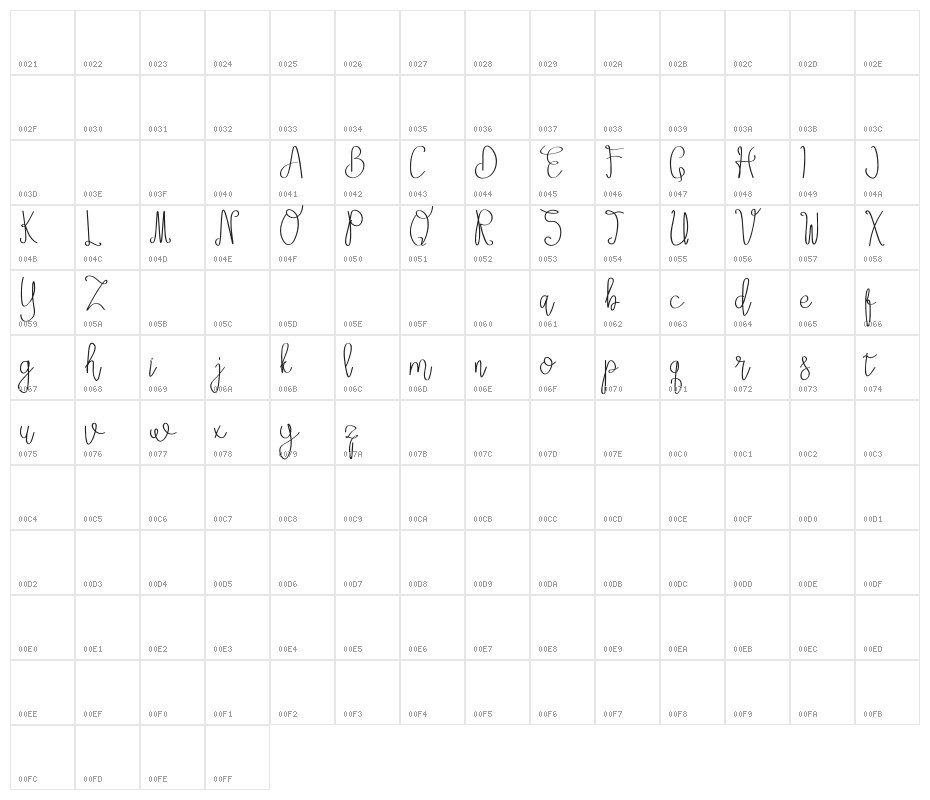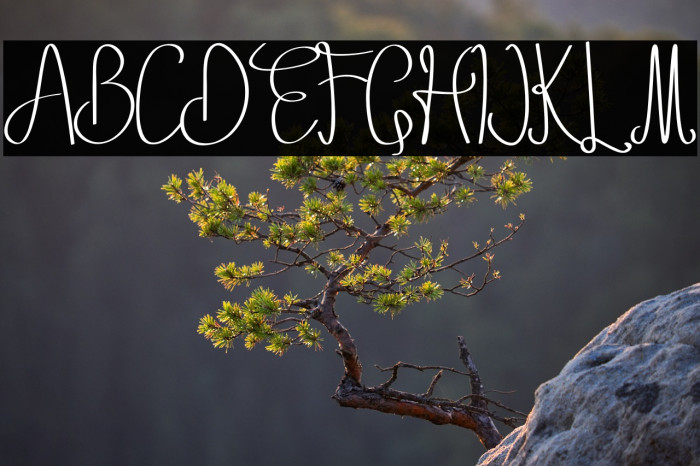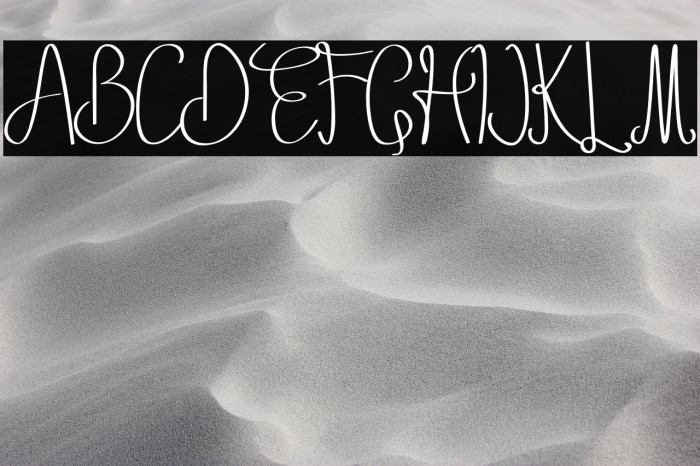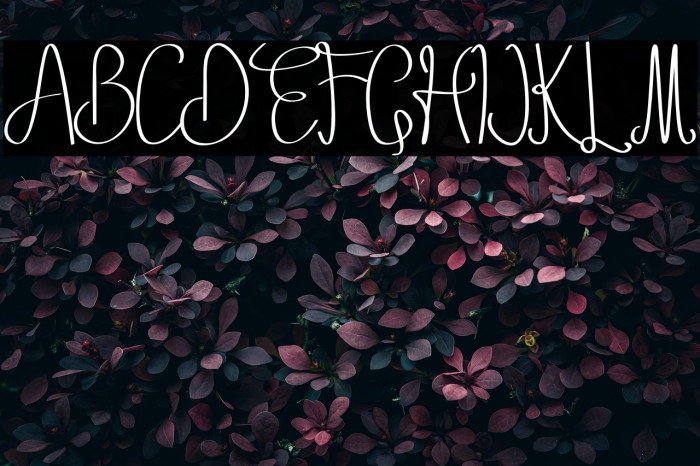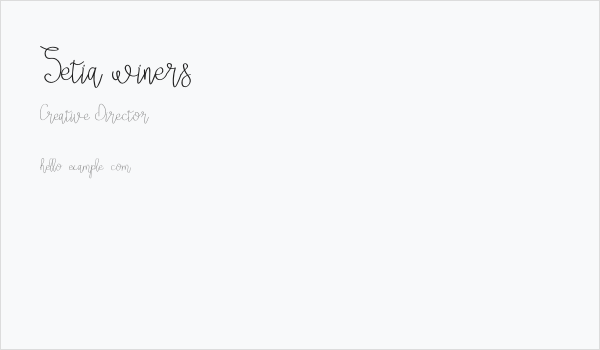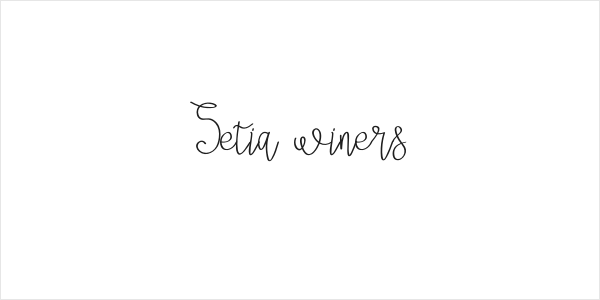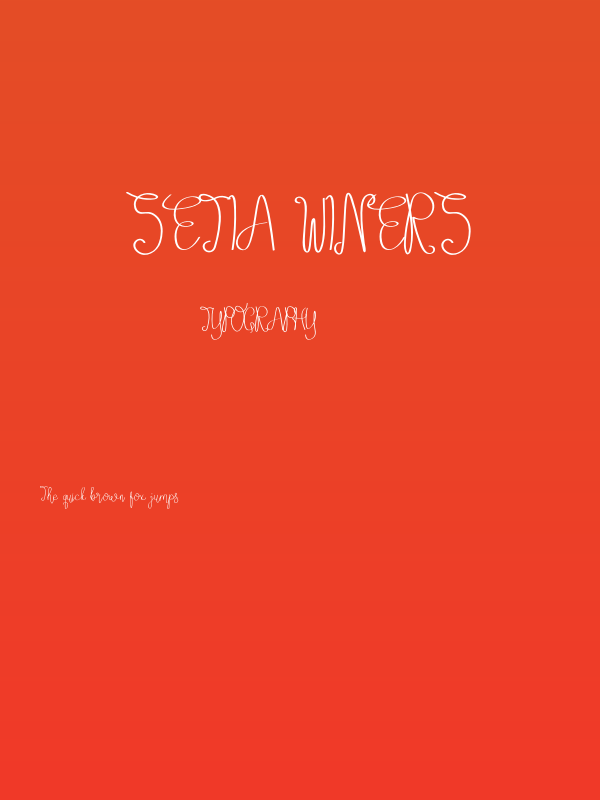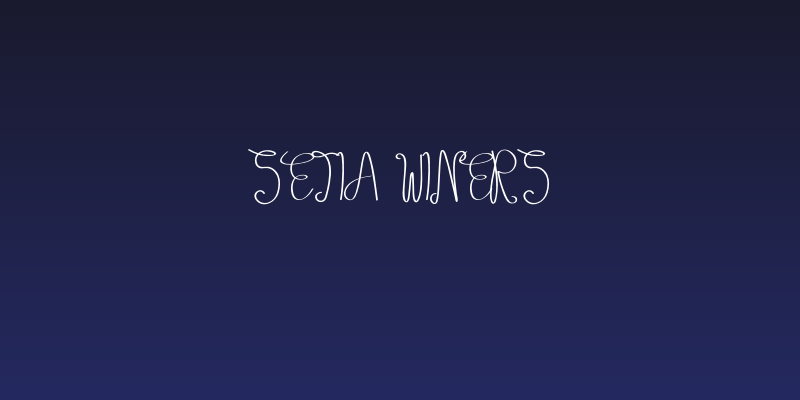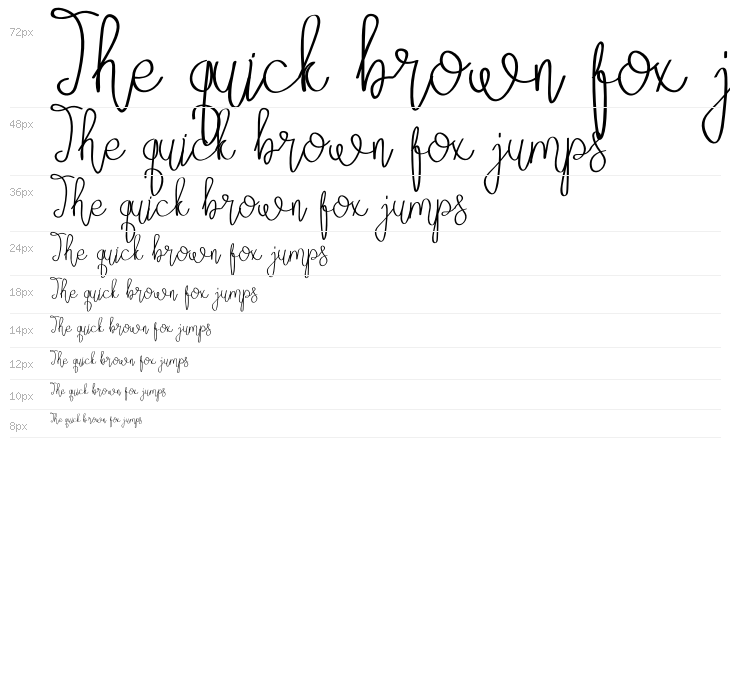
Setia winers Font
Setia winers Description
This font features an elegant and flowing script style, characterized by its intricate loops and swirls. The uppercase letters exhibit a sophisticated flair with extended strokes and decorative elements, while the lowercase letters maintain a consistent cursive flow. The numbers and special characters are designed to complement the overall aesthetic, adding a touch of whimsy and charm. The font's design is both artistic and legible, making it suitable for creative projects that require a personal touch.
| Use Case | Logos, Invitations, Greeting cards |